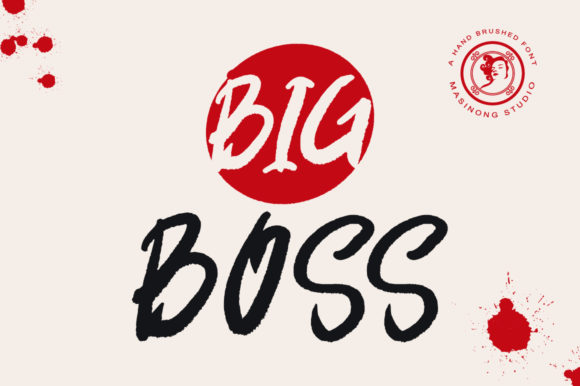
The Big Boss Font: A Bold and Brushed Display Font for Creative Projects
I’ll never forget the time I was working on a branding project for a trendy coffee shop. My client wanted a bold, eye-catching font that would make their logo stand out. I scoured the internet for hours, but nothing seemed quite right. That was until I stumbled upon the Big Boss font. With its bold and brushed display style, it was perfect for the job. In this article, I’ll share my experience with Big Boss, its features, and how to make the most of it in your creative projects.
A Personal Review of Big Boss
- ✨ Unique Brushed Style: Big Boss has a distinctive brushed look that adds a touch of personality to any design.
- ✅ High Versatility: This font is suitable for a wide range of projects, from branding and packaging to invitations and posters.
- 💡 Excellent for Logos: The bold and eye-catching style of Big Boss makes it perfect for logos that need to stand out.
While Big Boss is an excellent font, there are a few things to keep in mind:
- ⚠️ Legibility at Small Sizes: Like many display fonts, Big Boss can be difficult to read at small sizes. It’s best used at larger sizes where its unique style can shine.
- 🤔 Limited Use in Body Text: Due to its bold and brushed style, Big Boss is not suitable for body text. It’s best used as a headline or accent font.
How to Use Big Boss in Your Designs
- Experiment with OpenType features, such as stylistic alternates, to add more personality to your design.
If you like Big Boss, you might also like these similar fonts:
- Rugged: A bold and distressed font with a similar brushed style to Big Boss. Use it for logos, posters, and packaging.
- Bramble: A bold and handwritten font with a similar personality to Big Boss. Use it for branding, invitations, and quotes.
- Stencil: A bold and stencil font with a similar industrial feel to Big Boss. Use it for logos, posters, and labels.
- Gilroy: A bold and sans-serif font with a similar modern feel to Big Boss. Use it for branding, packaging, and digital designs.
The Story Behind Big Boss
Big Boss was designed by a team of typographers who wanted to create a bold and eye-catching font that would stand out in any design. Inspired by the world of graffiti and street art, Big Boss features a unique brushed style that’s perfect for logos, posters, and packaging. With its high versatility and excellent legibility, Big Boss has become a popular choice among designers and crafters.
Q: What is the Big Boss font?
A: Big Boss is a bold and brushed display font suitable for branding, packaging, invitations, quotes, t-shirts, labels, posters, and logos.
Q: Is Big Boss suitable for body text?
A: No, Big Boss is not suitable for body text. Its bold and brushed style makes it best suited for headlines and accent text.
Q: Can I use Big Boss in digital designs?
A: Yes, Big Boss can be used in digital designs, such as websites, social media graphics, and email marketing campaigns. However, please ensure you’re using it in a way that’s legible and visually appealing.